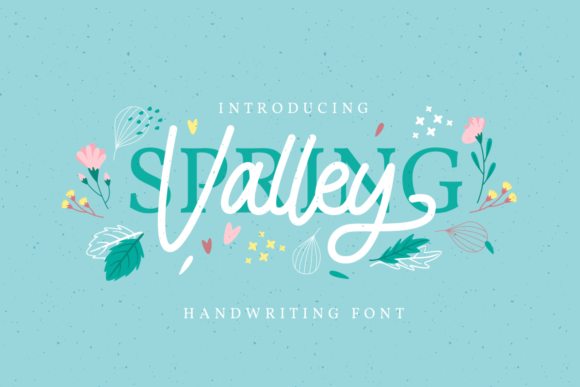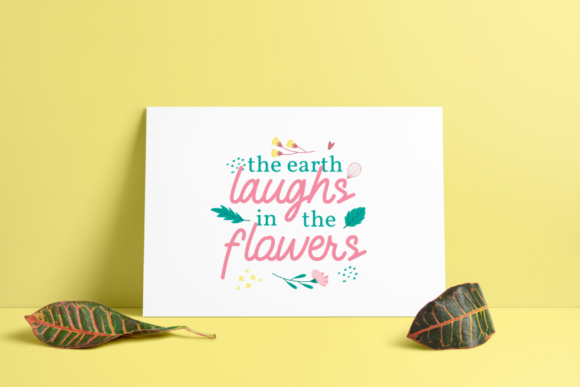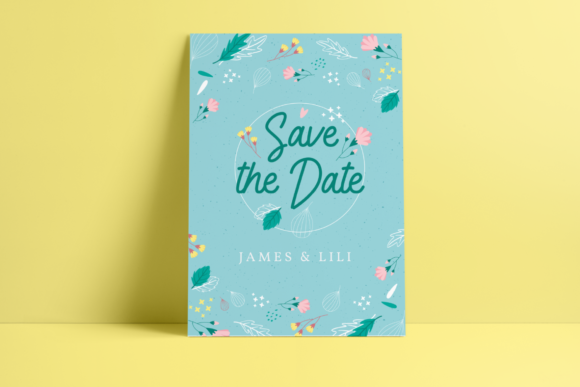
About Spring Valey Font
Spring Valey is a delicate, flowing and beautiful script font. It can easily be matched to an incredibly large set of projects, so add it to your creative ideas and notice how it makes them stand out!